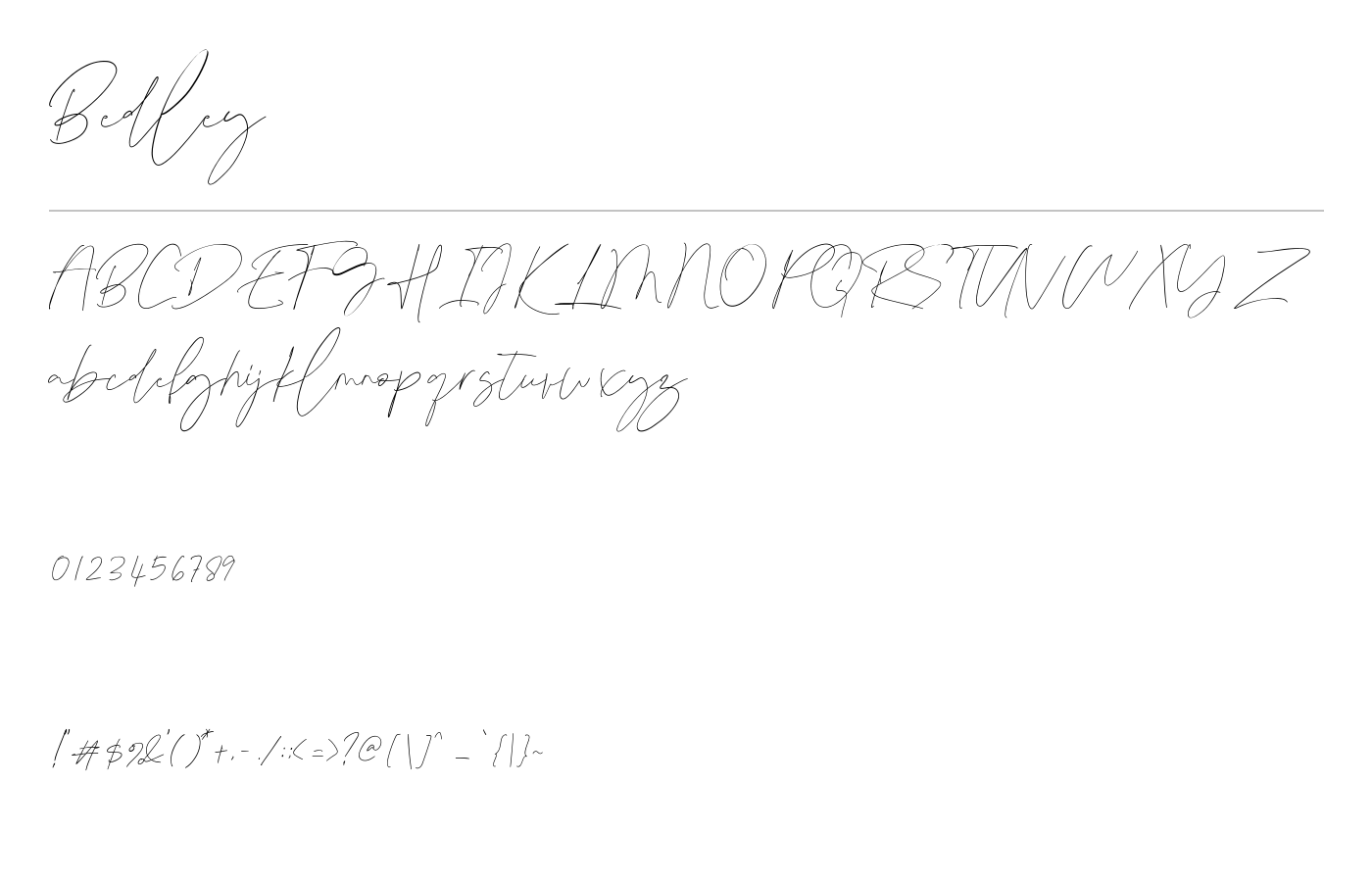
Bedley is a delicate and elegant handwritten script font with a light, airy feel created by its thin, flowing strokes and tall, slender letterforms. Its casual yet refined style makes it perfect for personal branding, wedding invitations, and fashion-related designs that seek a sophisticated and intimate touch. This font works best in headlines or short text that benefits from its charming and graceful personality.
Bedley Font
About Bedley Font